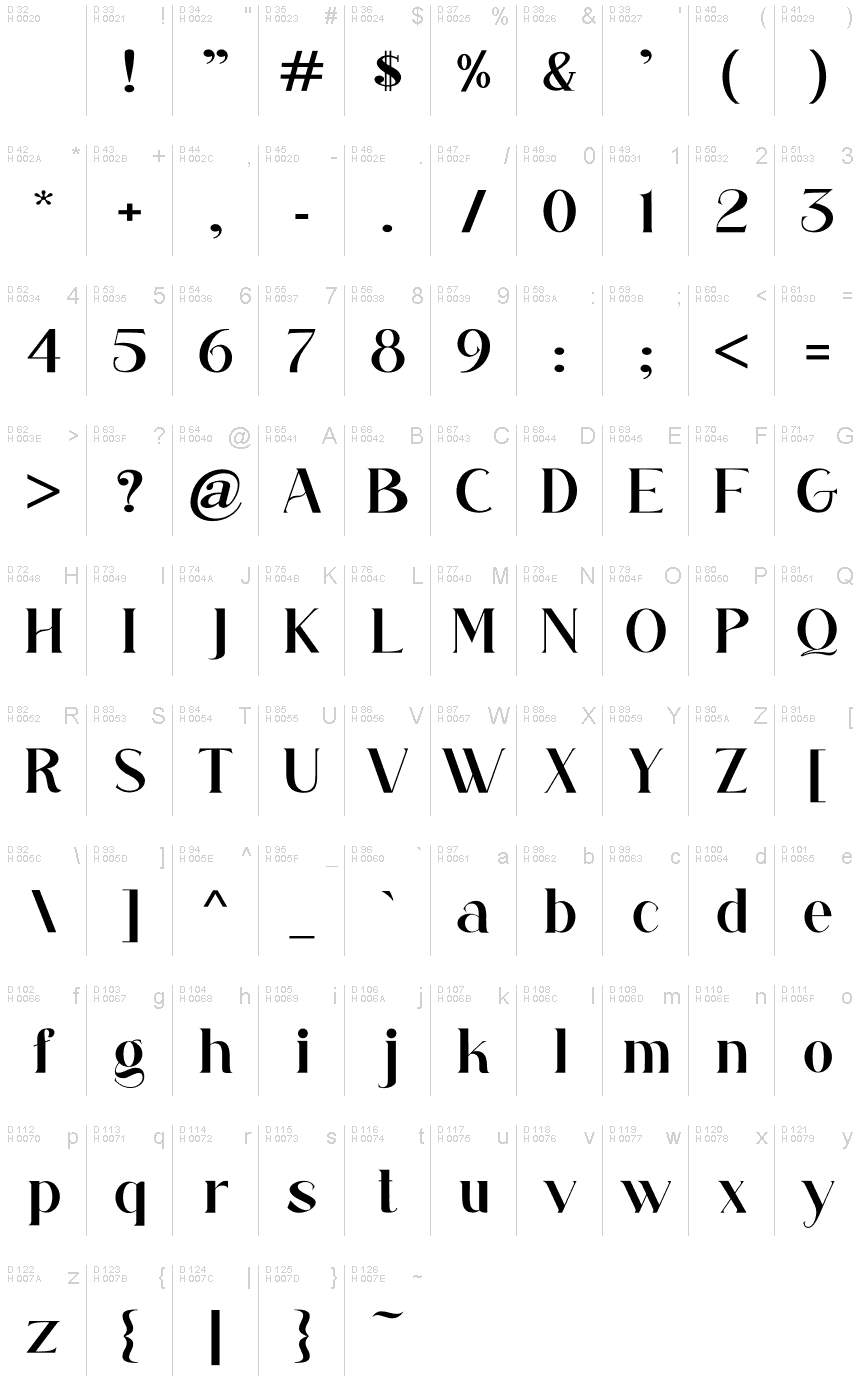
Begaters
Begaters, a creation of Sudarman Mulka, stands out as a semi-bold serif font that exudes character and sophistication. Its sturdy yet refined serifs pair with subtle curves to create a visual harmony that is both classic and contemporary. The balanced weight of Begaters lends it an aesthetic appeal that is versatile and pleasing to the eye, making it an excellent choice for editorial work, branding, and elegant display purposes.
Embracing traditional elegance with modern flair, Begaters carries an air of reliability with its well-crafted letterforms. This font's distinct personality shines in its details—notice the gentle tapering of strokes and the thoughtfully designed terminals which give it a unique look without compromising readability.
Suitable for a variety of creative projects, from print to digital media, Begaters has the potential to elevate design work with its timeless charm and stylish presence. Whether used in headlines or body text, this typeface offers designers a robust tool for crafting compelling narratives through typography.